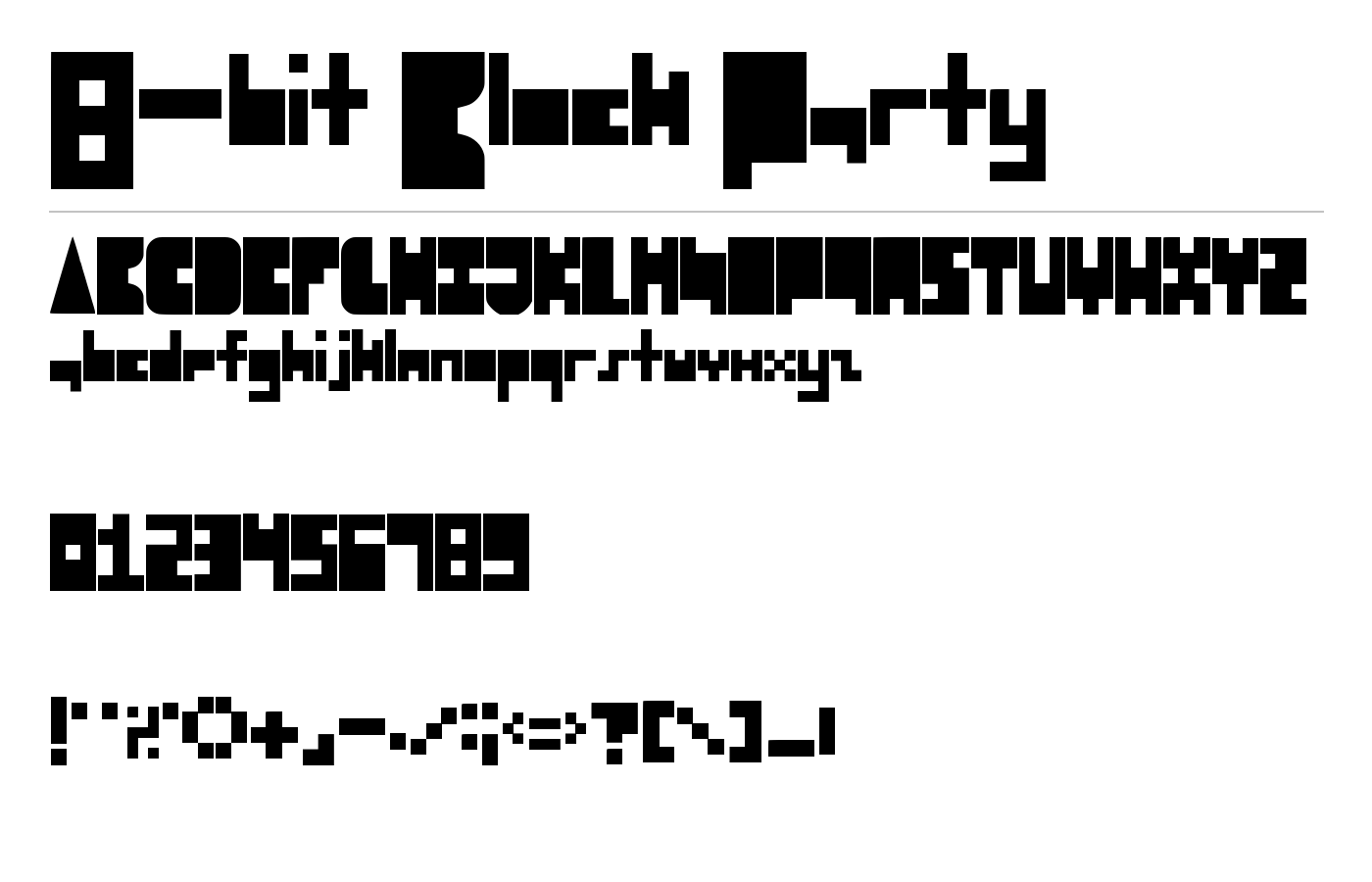
8-bit Block Party is a bold, square-shaped display font inspired by retro video game graphics, featuring sharp, blocky strokes with uniform weight and minimal contrast. Its distinctive pixelated style gives it a playful, nostalgic feel perfect for adding a vintage digital vibe to logos, posters, and creative projects that seek to evoke 8-bit gaming culture. This font works best in large sizes where its unique geometric letterforms and clear shapes can stand out with maximum impact.
8-bit Block Party Font
About 8-bit Block Party Font